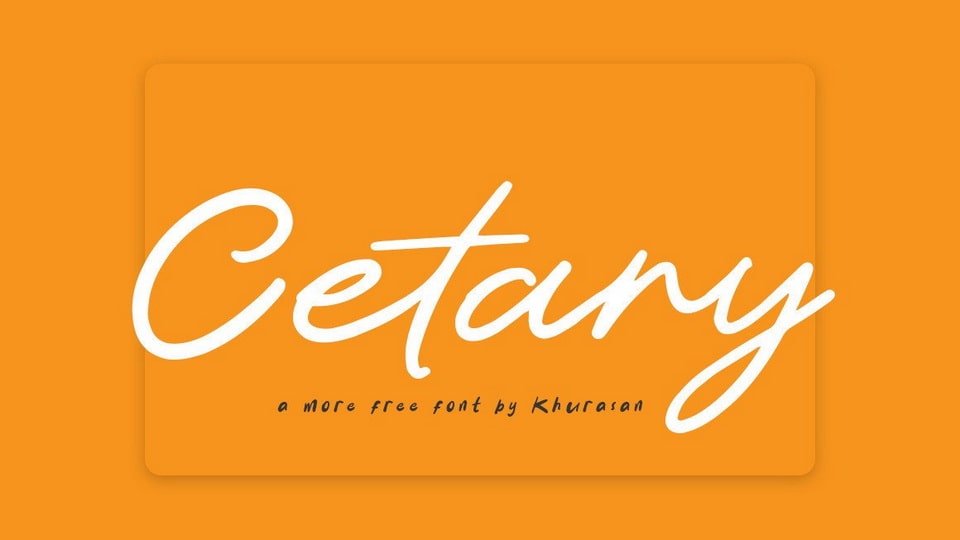
Download Cetary font, a simple and casual handwritten typeface. Cetary is perfect for posters, logos, magazines, book covers, banners, and many more.